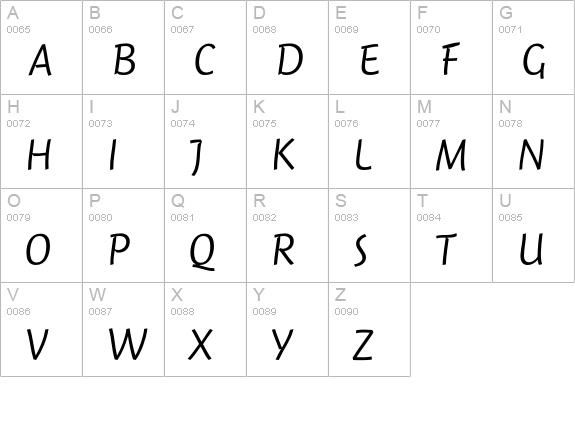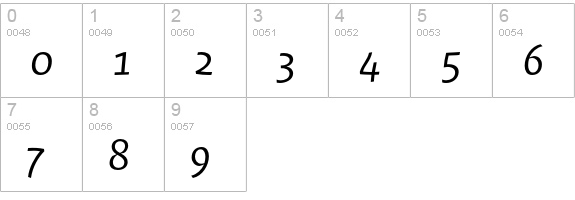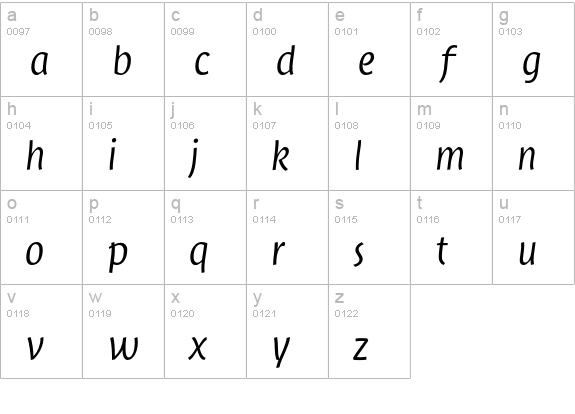
Jambono-Light is a refined, elegant variant in the Jambono typeface family \xE2\x80\x94 well suited to elegant body text, refined sub-headings, and luxury branding.
Introducing Jambono-Light, the epitome of elegance and sophistication in the world of typography. This exquisite font effortlessly combines sleek lines and delicate curves, resulting in a timeless design that is sure to captivate any audience. With its light weight and airy appearance, Jambono-Light exudes a sense of grace and modernity. It is the perfect choice for those seeking a font that can effortlessly enhance the visual appeal of their projects, whether it be for branding, advertising, or any other creative endeavor. What sets Jambono-Light apart is not only its impeccable design, but also its accessibility. We believe that great design should be freely available to all, and that is why Jambono-Light is offered as a complimentary download on FontsMarket.com. This means that designers and enthusiasts alike can easily access this stunning font and utilize it in their work, without any limitations. Whether you are a seasoned designer looking to add a touch of finesse to your latest project, or a beginner exploring the world of typography, Jambono-Light is a font that will undoubtedly elevate your creations to new heights. Its versatility allows it to seamlessly adapt to various styles and contexts, making it a valuable asset in any design arsenal. Immerse yourself in the elegance and charm of Jambono-Light, and let its graceful strokes and refined proportions bring your vision to life. Download this remarkable font for free at FontsMarket.com, and experience the beauty of Jambono-Light for yourself.